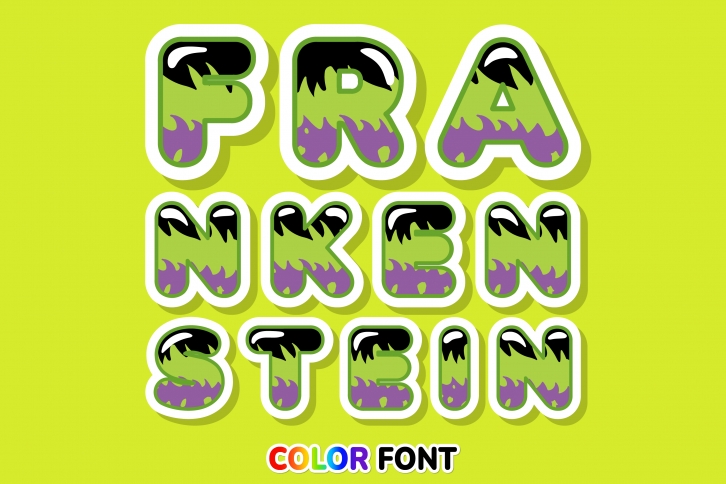
Frankenstein is an incredibly cool color font. Whether you use it for custom designs, DIY crafts, or just any creation that requires a lovely touch, this font will be an amazing choice.